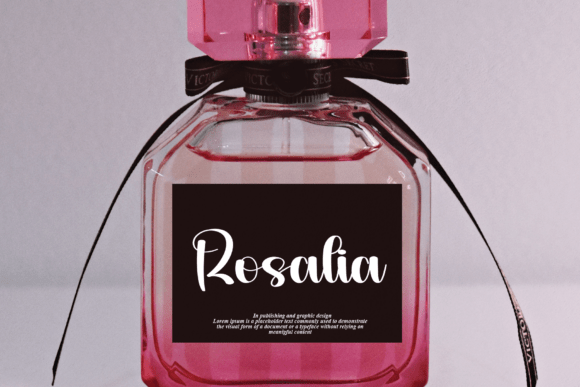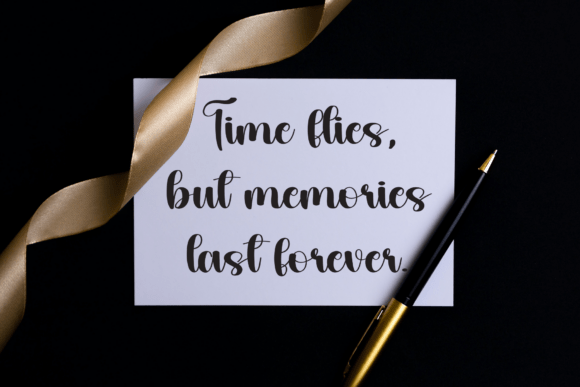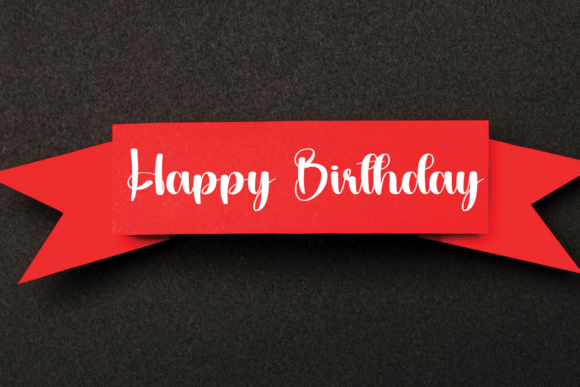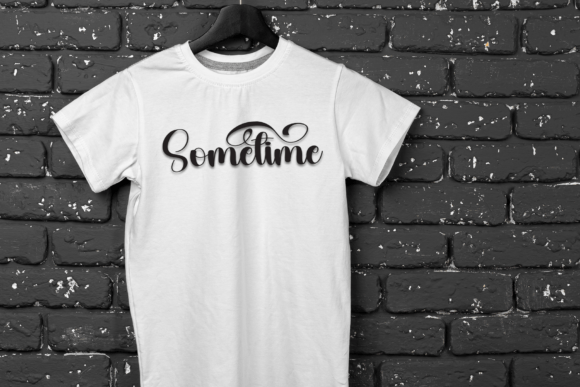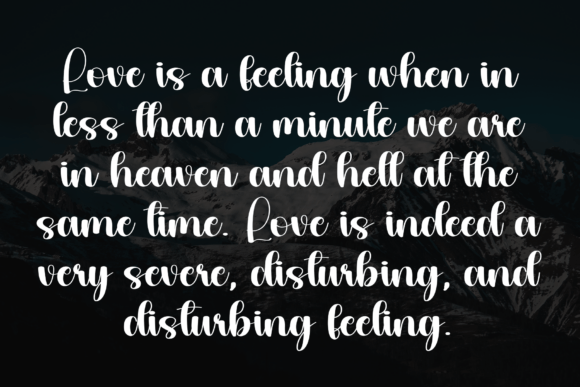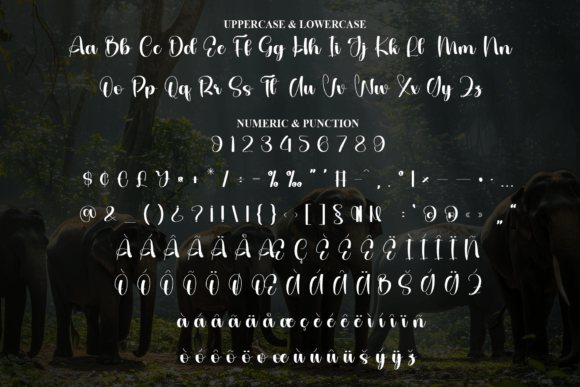
Introducing Elephant Font: The Epitome of Elegance and Playfulness
In the realm of typography, few fonts manage to strike a balance between elegance and playfulness. However, Elephant Font stands out as a shining example of a stylish handwritten script font that effortlessly captures the essence of both worlds. With its flowing curves and natural rhythm, Elephant Font brings a personal, charming touch to various creative projects, including invitations, branding, and social media.
The Design Philosophy Behind Elephant Font
Elephant Font is more than just a collection of letters; it’s an expression of creativity and sophistication. The design philosophy behind this font revolves around the idea of creating a typeface that exudes warmth, elegance, and a dash of playfulness. Each stroke is carefully crafted to ensure that the font not only looks aesthetically pleasing but also conveys a sense of approachability and charm.
Key Features of Elephant Font
• Flowing Curves: One of the defining features of Elephant Font is its flowing curves. These smooth transitions between letters give the font a natural, handwritten feel that is both soothing and engaging.
• Natural Rhythm: The font’s natural rhythm makes it easy to read and adds to its charm. This rhythm also helps in creating a sense of movement and energy, making it perfect for dynamic projects.
• Elegant and Playful: Elephant Font strikes the perfect balance between elegance and playfulness. Its elegant design ensures sophistication, while its playful undertones add a fun and modern twist.
• Versatility: Whether you’re working on invitations, branding materials, or social media content, Elephant Font proves to be incredibly versatile. Its adaptability makes it a favorite among designers and crafters.
Applications of Elephant Font
The versatility of Elephant Font makes it suitable for a wide range of applications. Here are some of the most popular uses:
• Invitations: Add a touch of elegance and personalization to your invitations, be it for weddings, parties, or corporate events.
• Branding: Use Elephant Font to create a unique and memorable brand identity. Its stylish and approachable feel can help brands connect with their audience on a more personal level.
• Social Media: Elevate your social media content with Elephant Font. Whether you’re creating posts, stories, or captions, this font can add a charming and sophisticated touch to your messages.
Why Designers and Crafters Love Elephant Font
Designers and crafters often find themselves on the lookout for fonts that can add a unique touch to their projects. Elephant Font has gained popularity for several reasons:
• Unique Aesthetic: In a sea of generic fonts, Elephant Font offers a unique aesthetic that can make projects stand out.
• Emotional Connection: The warmth and playfulness of Elephant Font help create an emotional connection with the audience, making projects more relatable and engaging.
• Easy to Read: Despite its elegant and playful nature, Elephant Font remains easy to read, making it practical for a variety of uses.
Tips for Using Elephant Font Effectively
To get the most out of Elephant Font, consider the following tips:
• Pair with Complementary Fonts: Pair Elephant Font with simpler fonts to create contrast and make your content more readable.
• Adjust Letter Spacing: Experiment with letter spacing to enhance the natural rhythm and flow of the font.
• Use for Headings and Subheadings: Elephant Font works beautifully for headings and subheadings, adding a touch of elegance and playfulness to your content.
Font Name Elephant Font
Elephant Font is a stylish handwritten script font that brings a perfect blend of elegance and playfulness to any project. Its flowing curves, natural rhythm, and versatile nature make it a favorite among designers and crafters. Whether you’re working on invitations, branding materials, or social media content, Elephant Font can add a personal, charming touch that sets your work apart. With its unique aesthetic and emotional appeal, Elephant Font is sure to leave a lasting impression on your audience.